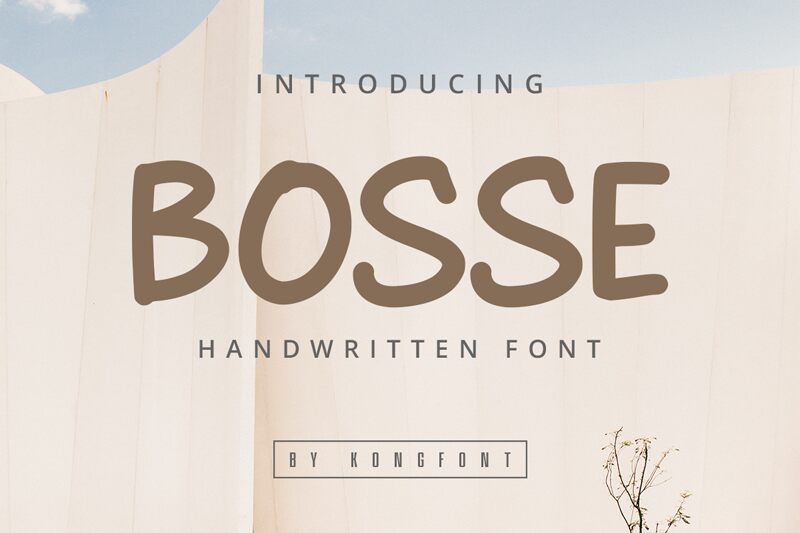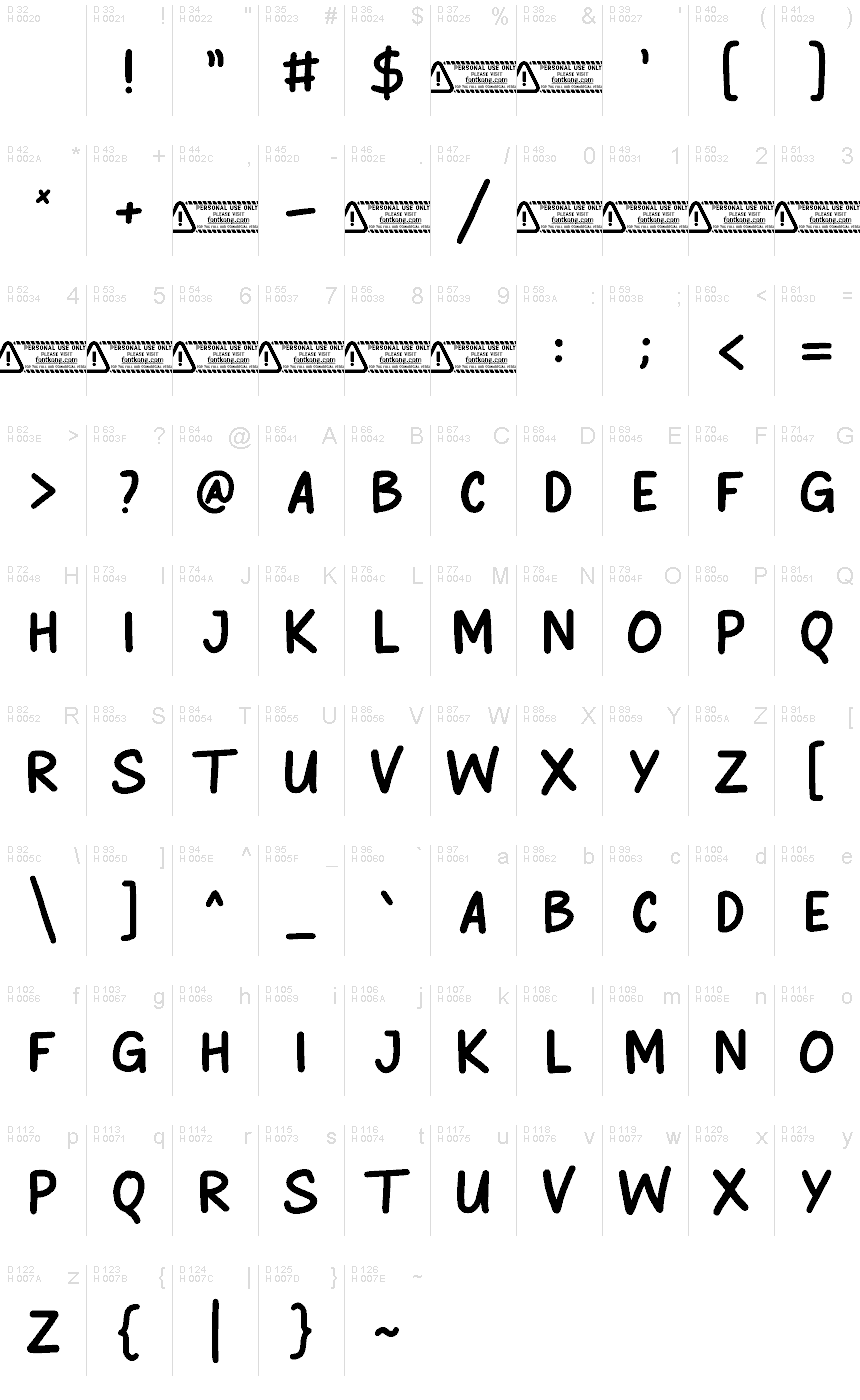
Bosse font is a handwritten font by Kong Font with a casual and modern look. Designed with an expert eye, all characters have the same rounded shape and relaxed style. This set is ideal for spontaneous typographic applications that should look flowy, informal, and organic.